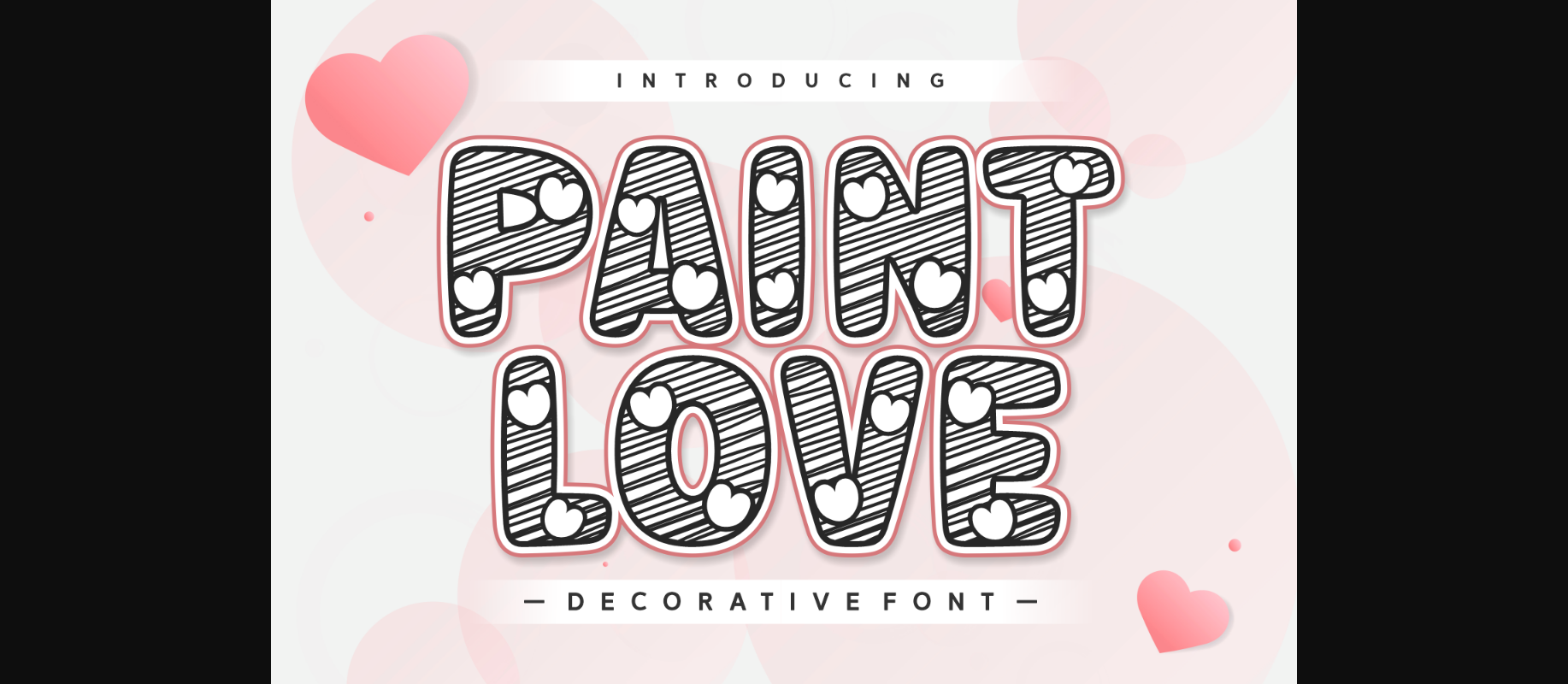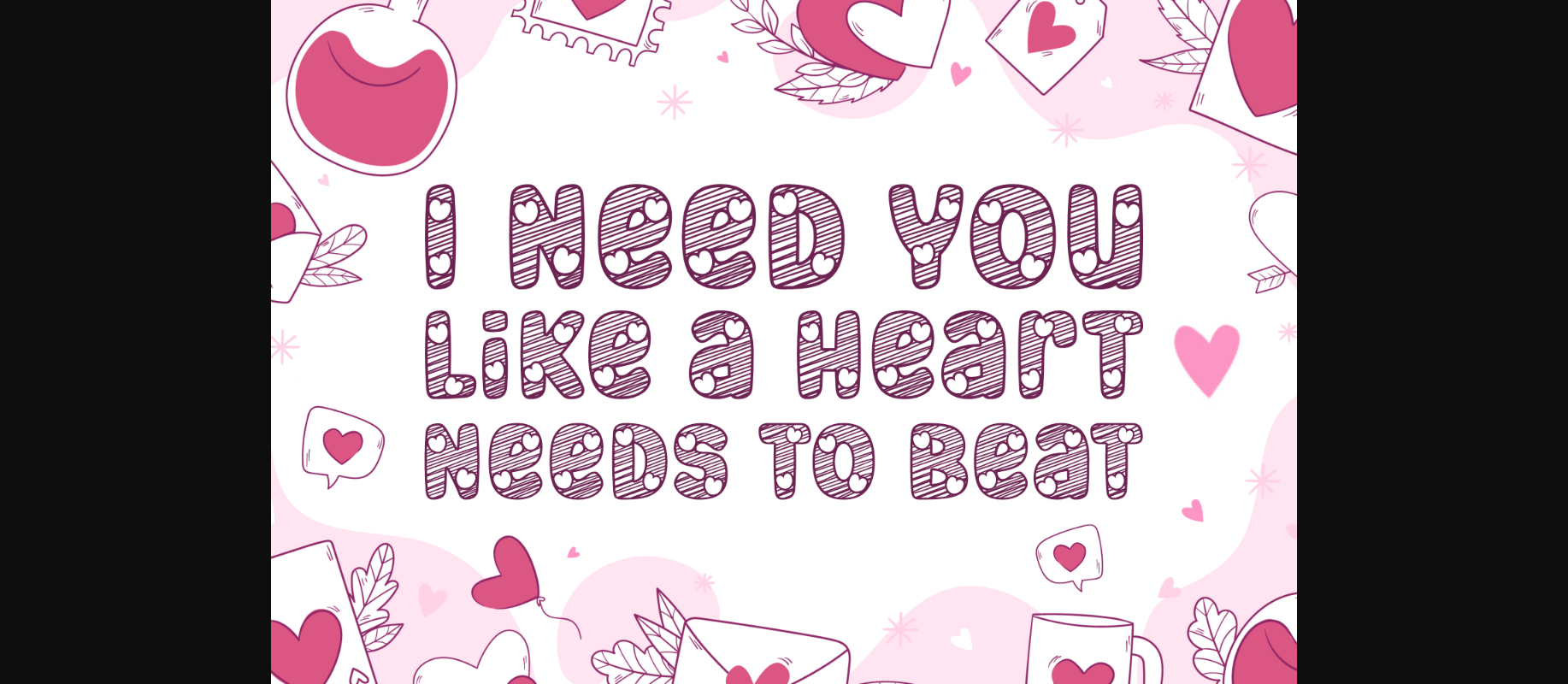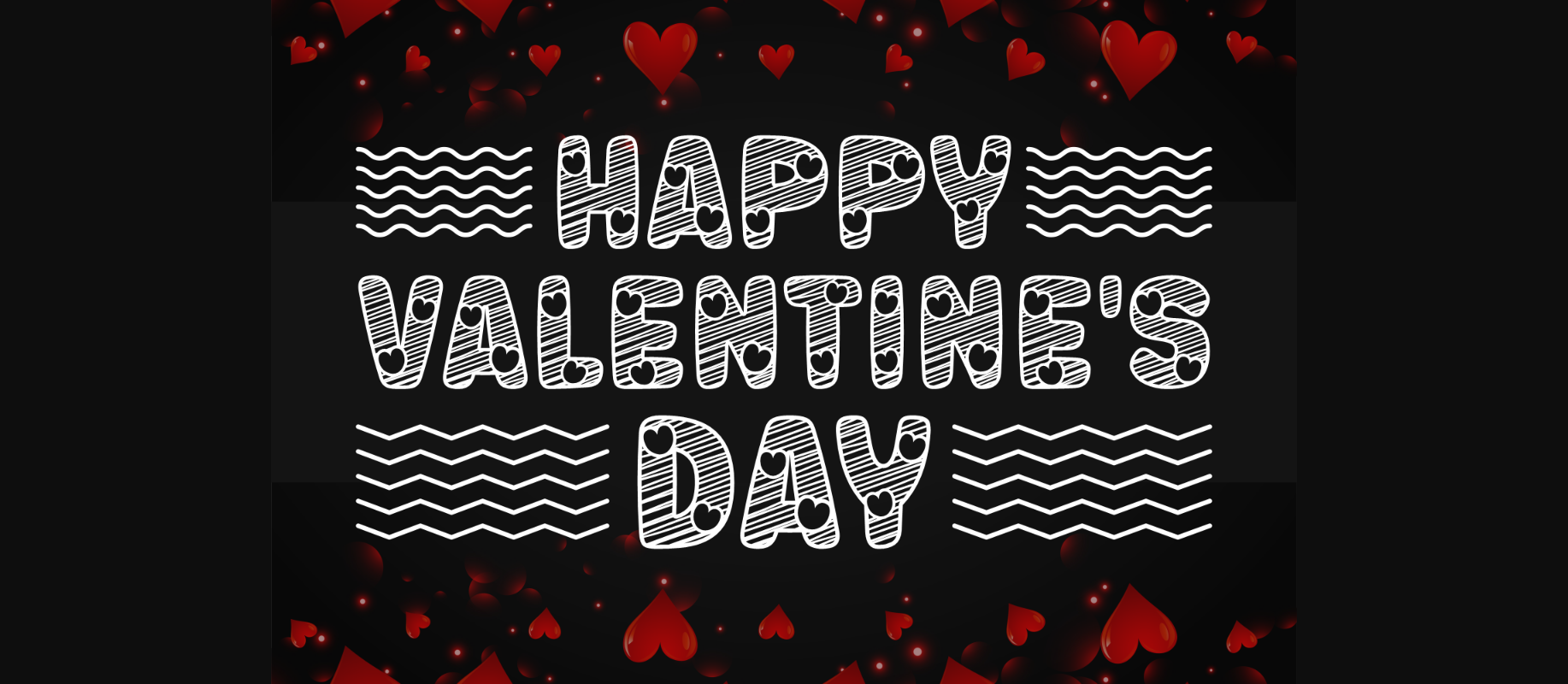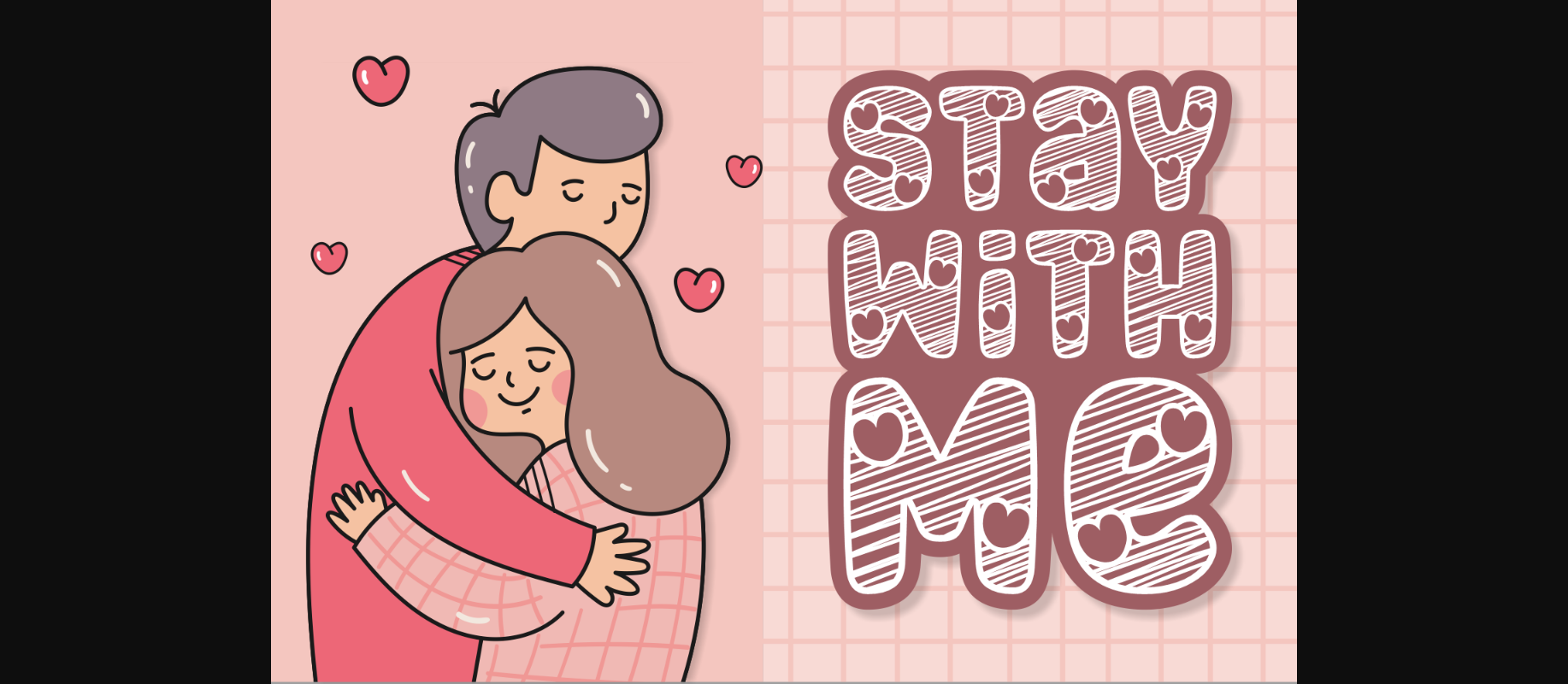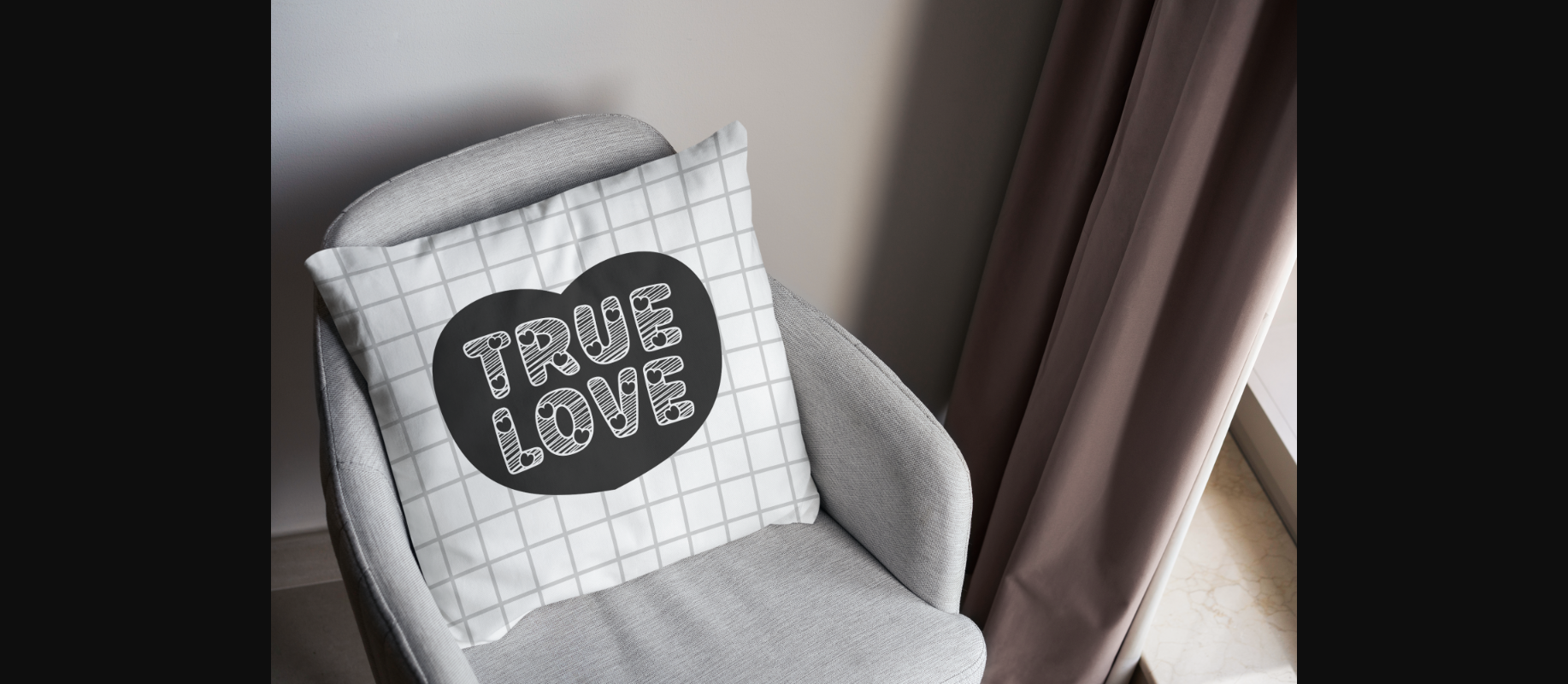
Paint Love Font
About Paint Love Font
Paint Love is a whimsical and decorative font that adds a touch of love to your designs. Each letter is adorned with a charming heart, infusing your text with warmth and playfulness. Ideal for expressing affection in your projects, this font brings a delightful and creative flair to any piece. Whether you’re creating greeting cards, posters, or other heartfelt designs, Paint Love is the perfect choice for infusing your words with a dose of sweet and endearing charm.